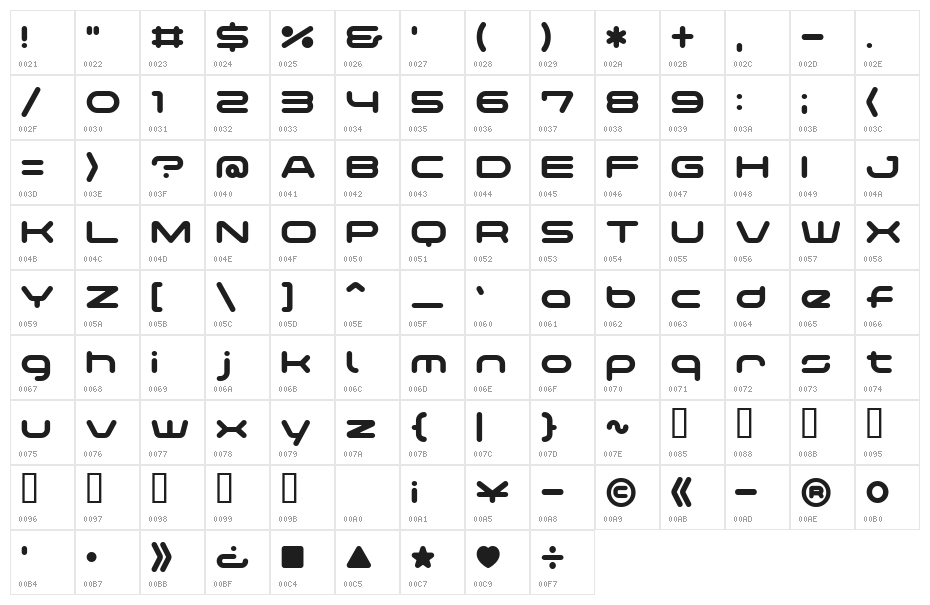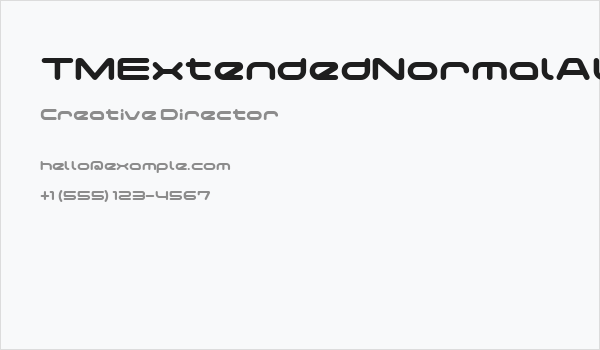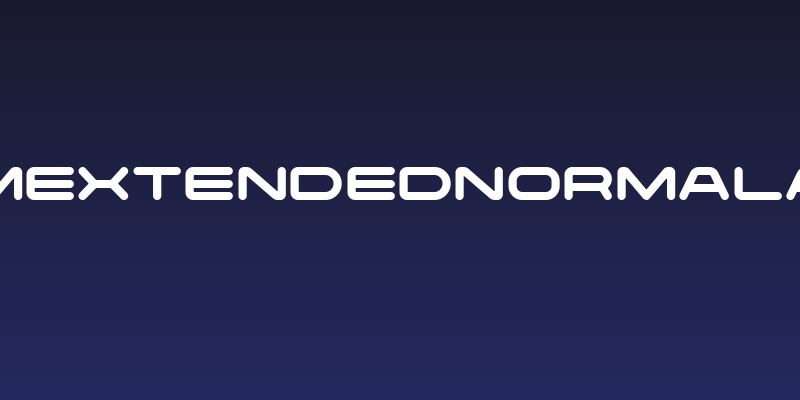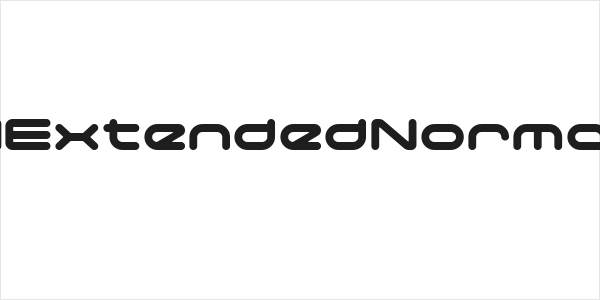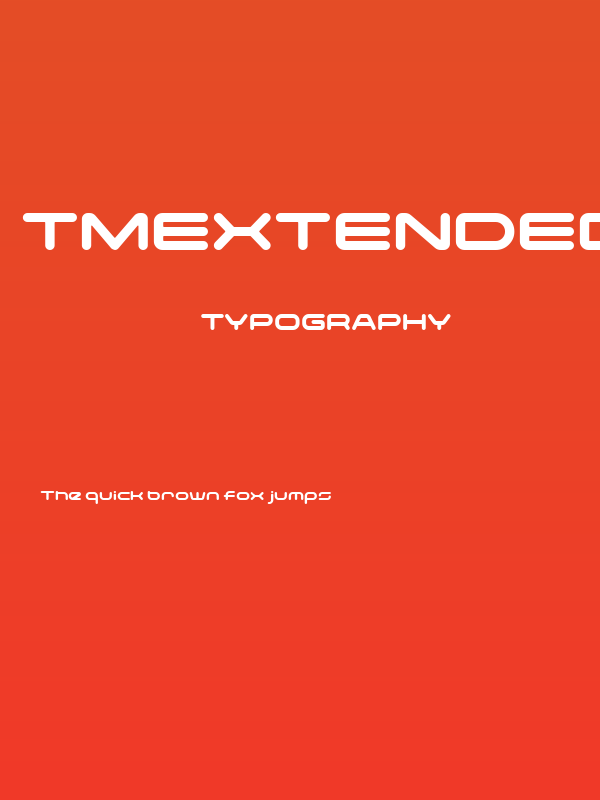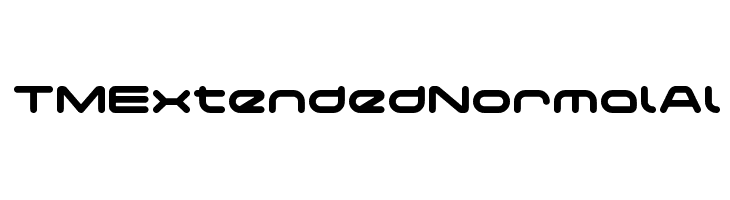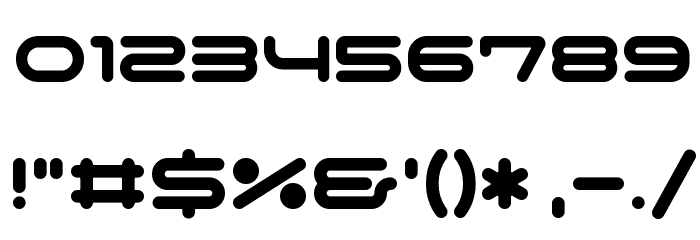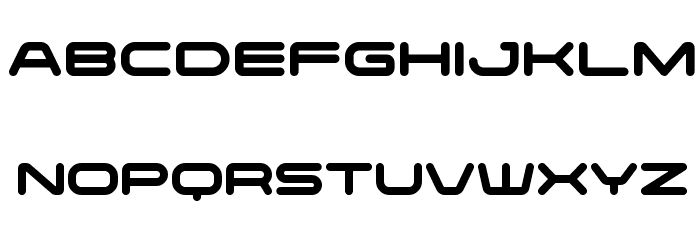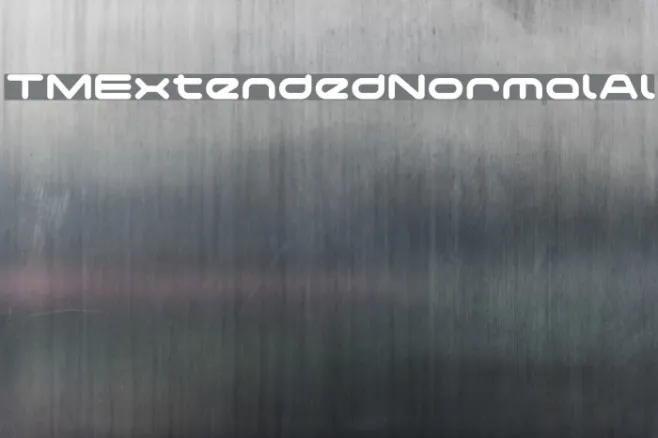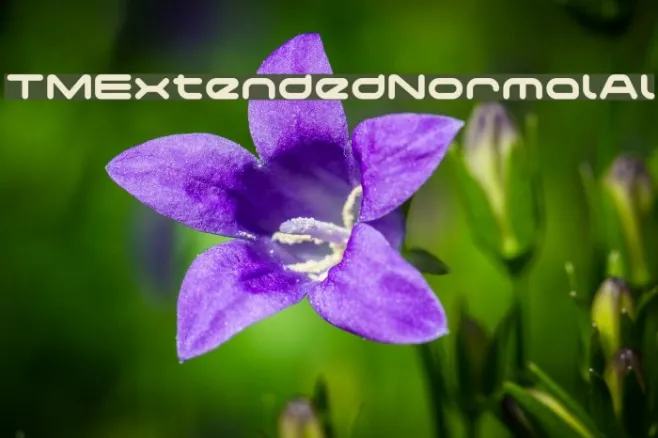
TMExtendedNormalAl Font
TMExtendedNormalAl Description
This font features a modern, futuristic design with rounded edges and a streamlined appearance. The characters are uniform in width, giving it a monospaced feel, yet they maintain a distinct, contemporary style. The uppercase and lowercase letters are consistent in their geometric shapes, creating a cohesive look across the alphabet. The numerals and special characters follow the same design principles, ensuring a harmonious overall appearance. The font's smooth curves and clean lines make it suitable for digital and print media, offering a sleek and polished aesthetic.
| Use Case | Headlines, Logos, Digital interfaces |
| Proposed Projects | Ideal for technology branding, digital interfaces, futuristic designs, and modern advertising. |